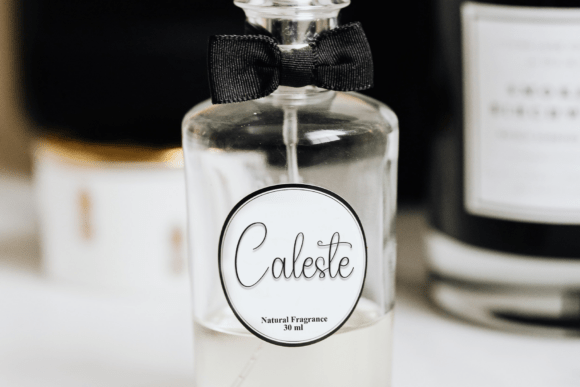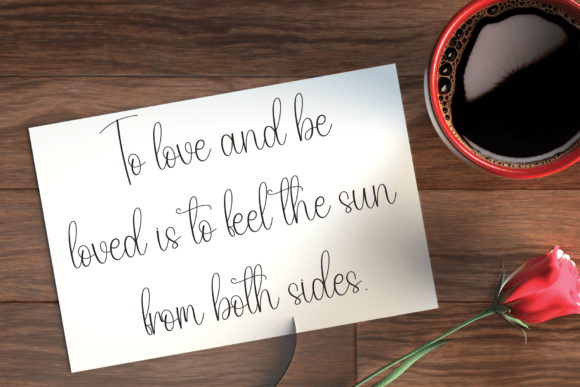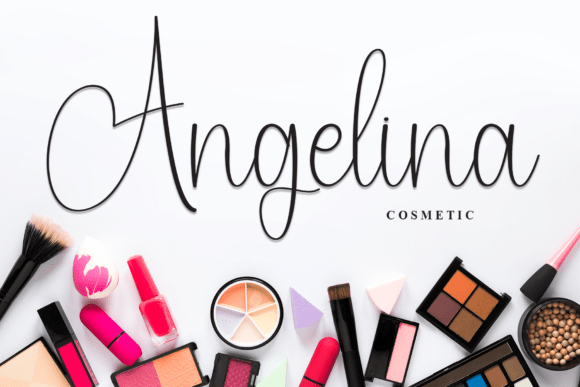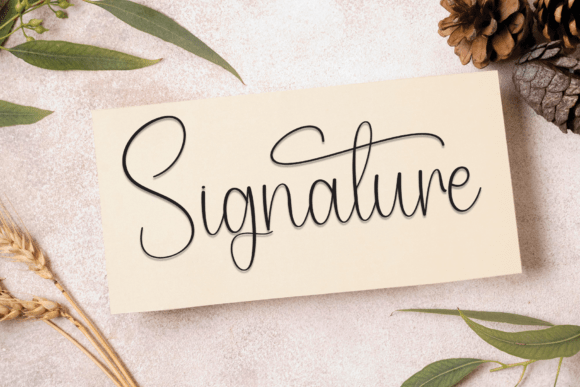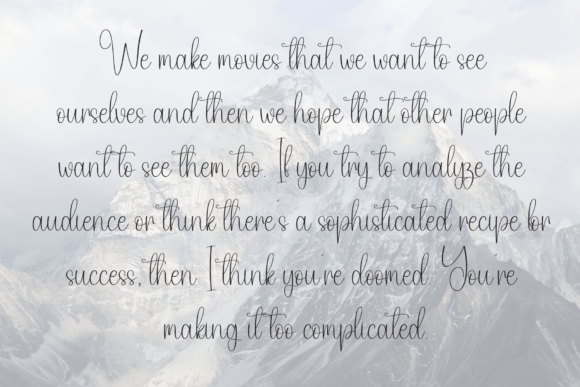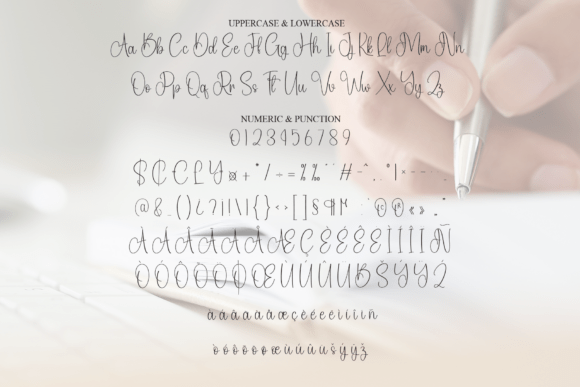
Discover the Elegance of Amsterdam Signature Font
In the world of typography, few fonts manage to convey the perfect blend of sophistication, elegance, and charm. Amsterdam Signature is one such font that has captured the hearts of designers and crafters alike. This beautiful script font is designed to bring a touch of class and personality to any design project, making it an ideal choice for those seeking a modern yet refined aesthetic.
The Characteristics of Amsterdam Signature Font
Amsterdam Signature is a sophisticated and graceful script font that boasts flowing lines, stylish swashes, and a modern handwritten feel. Its elegant design makes it perfect for a variety of applications, including branding, wedding invitations, logos, and signature-style quotes. The font’s unique characteristics include:
• Flowing Lines: Amsterdam Signature features smooth, connected letters that create a sense of fluidity and movement.
• Stylish Swashes: The font comes with a range of swashes that add a touch of elegance and sophistication to any design.
• Modern Handwritten Feel: Despite its elegance, Amsterdam Signature has a distinctly handwritten feel that makes it perfect for designs that require a personal touch.
Uses of Amsterdam Signature Font
Amsterdam Signature is a versatile font that can be used in a variety of design projects. Some of the most popular uses of this font include:
• Branding: Amsterdam Signature is perfect for creating elegant and sophisticated brand identities that make a lasting impression.
• Wedding Invitations: The font’s romantic and elegant feel makes it an ideal choice for wedding invitations, save-the-date cards, and other wedding-related designs.
• Logos: Amsterdam Signature can be used to create stunning logos that exude elegance and sophistication.
• Signature-Style Quotes: The font’s modern handwritten feel makes it perfect for creating beautiful signature-style quotes that add a personal touch to any design.
Why Choose Amsterdam Signature Font?
With so many fonts available, why should you choose Amsterdam Signature for your design projects? Here are just a few reasons:
• Elegance and Sophistication: Amsterdam Signature is designed to convey elegance and sophistication, making it perfect for designs that require a refined aesthetic.
• Versatility: The font can be used in a variety of design projects, from branding and logos to wedding invitations and signature-style quotes.
• Modern Handwritten Feel: Amsterdam Signature has a distinctly handwritten feel that makes it perfect for designs that require a personal touch.
• Easy to Read: Despite its elegant design, Amsterdam Signature is easy to read, making it perfect for designs that require a clear and concise message.
Tips for Using Amsterdam Signature Font
To get the most out of Amsterdam Signature, here are a few tips to keep in mind:
• Use it Sparingly: Amsterdam Signature is a elegant font that can quickly become overwhelming if overused. Use it sparingly to create a lasting impression.
• Pair it with Other Fonts: Amsterdam Signature can be paired with other fonts to create a unique and visually appealing design.
• Experiment with Swashes: The font’s swashes can add a touch of elegance and sophistication to any design. Experiment with different swashes to find the one that works best for your project.
Amsterdam Signature is a beautiful script font that is perfect for designers and crafters seeking a sophisticated and elegant aesthetic. With its flowing lines, stylish swashes, and modern handwritten feel, this font is ideal for a variety of design projects, from branding and logos to wedding invitations and signature-style quotes. By following the tips outlined above, you can get the most out of Amsterdam Signature and create stunning designs that make a lasting impression.